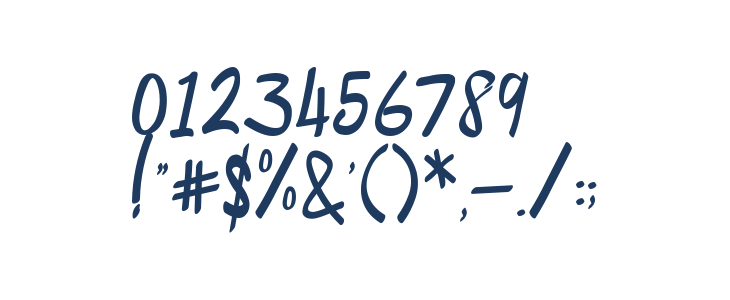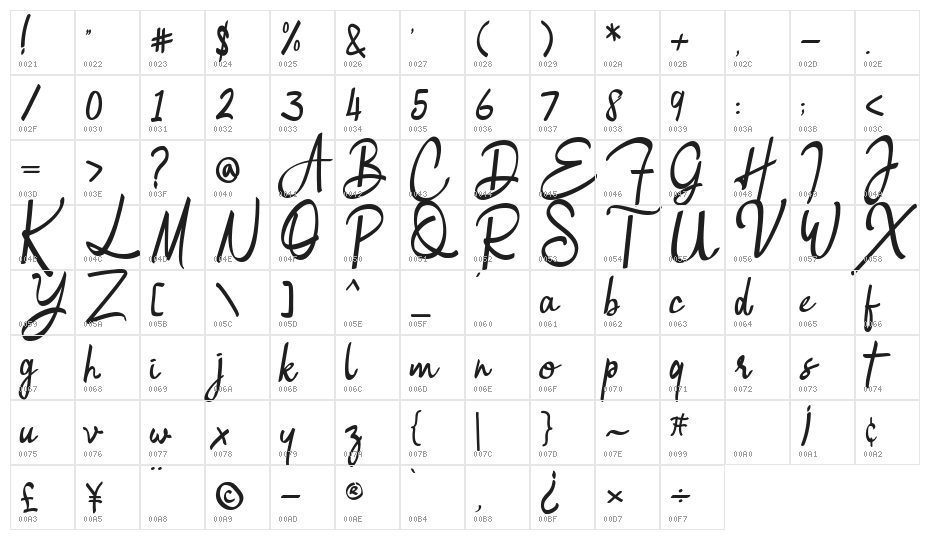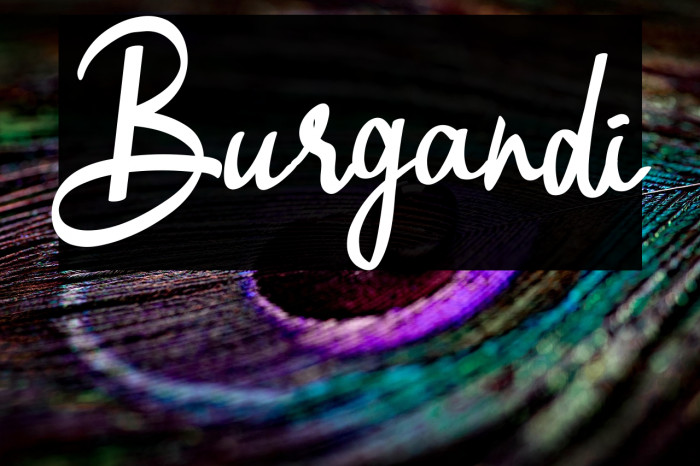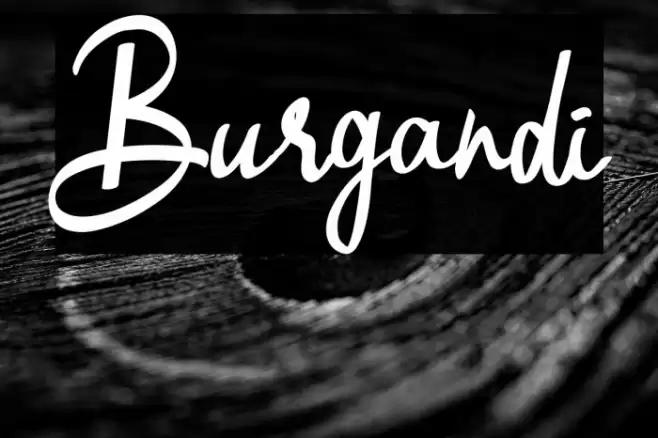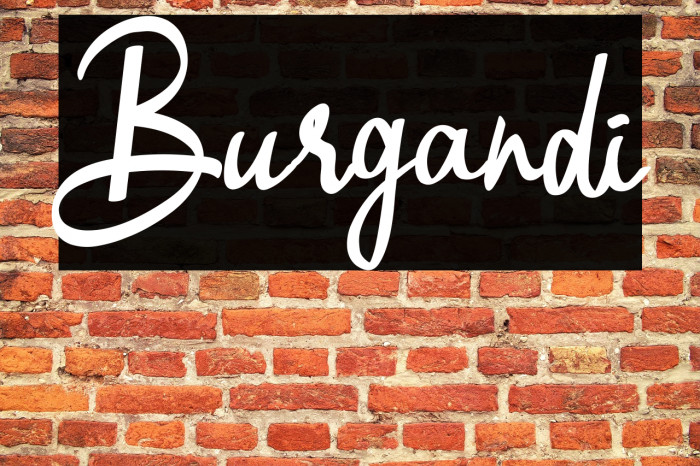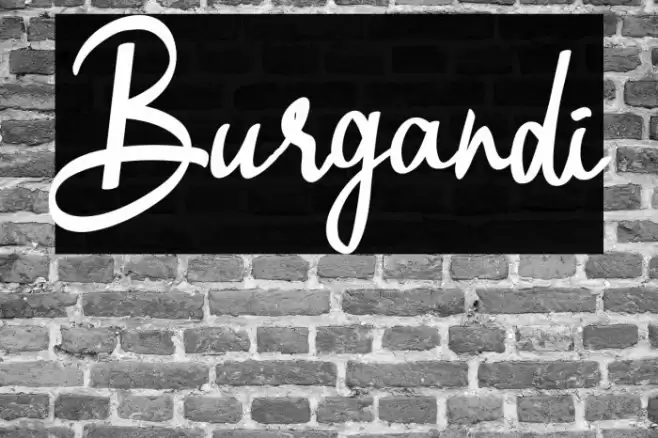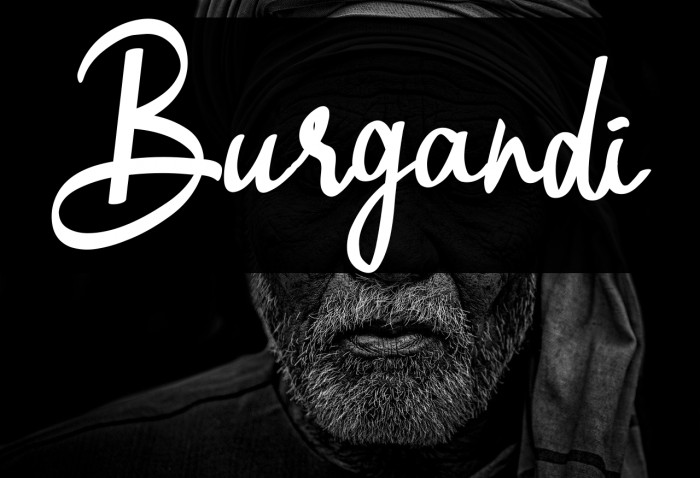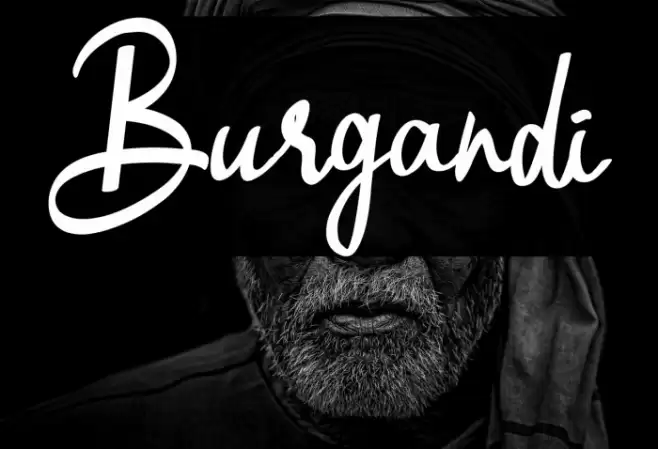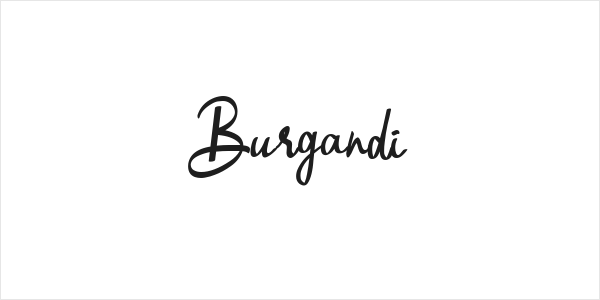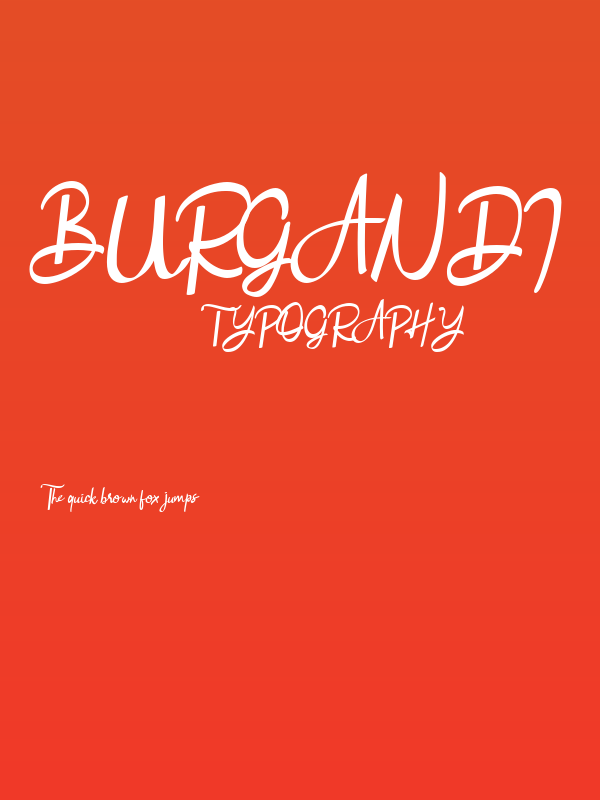
Burgandi Font
Burgandi Description
This font features a dynamic and fluid script style, characterized by its elegant, flowing lines and cursive nature. The uppercase letters exhibit a graceful loop and swirl, maintaining a consistent slant that adds a sense of motion and sophistication. The lowercase letters are equally fluid, with smooth connections between characters that enhance readability while retaining a personal, handwritten feel. The numerals are bold and slightly rounded, complementing the overall aesthetic. Special characters maintain the same fluidity, ensuring a cohesive look across all glyphs.